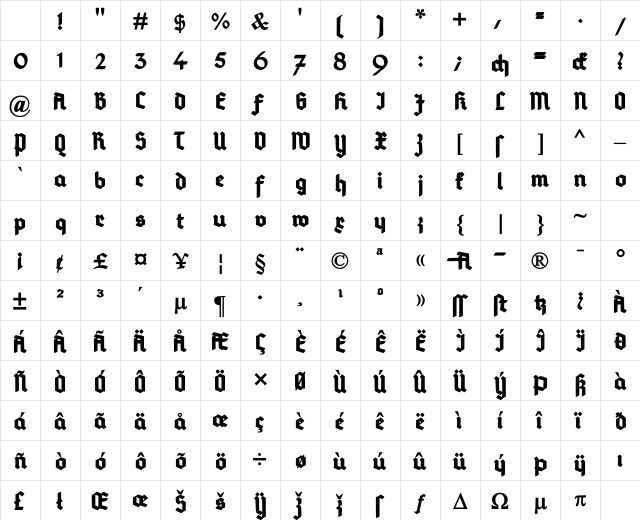
Complete Deutsch-Gotisch Heavy Regular glyph index. Displaying only characters natively supported by Deutsch-Gotisch Heavy Regular font.
Deutsch-Gotisch Heavy is a composed and adaptable typeface that performs quietly and consistently across a wide range of design contexts.
Pro Tip: Use Deutsch-Gotisch Heavy in both headline and body roles to test its range before committing to a single application.